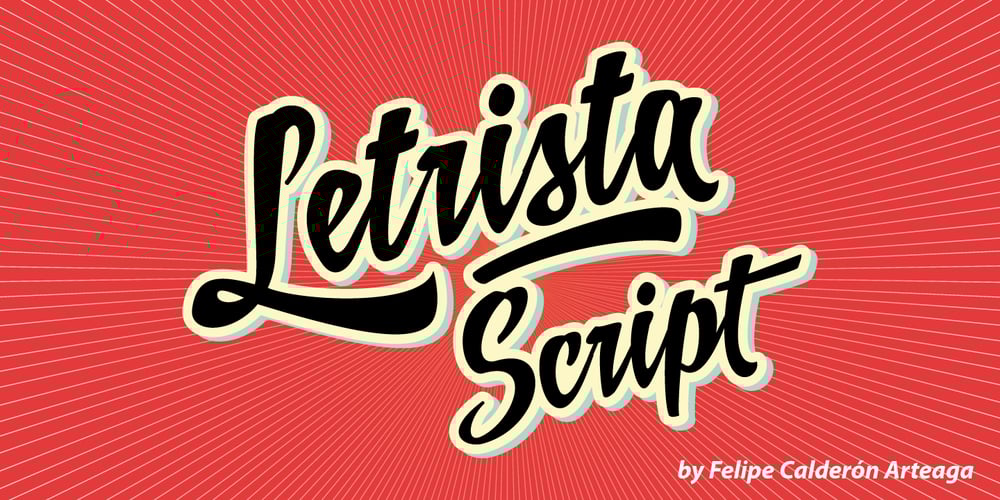
Letrista Script
Letrista Script font
Letrista Script Font Family was designed by Felipe Calderón and published by Estudio Calderon. Letrista Script contains 2 styles and family package options. Letrista Script is a product of observation and sensitivity of sign painter artists not only from United States but from other parts of the world, where the brushstrokes letters have reached a high level of importance in different context, where the writing makes fundamental part. With more than 1000 glyphs, this typography was created to achieve a unique texture without losing the legibility or force, to interact with the alternation of decorative characters and adornment that will surprise. After a year of working and checking with many artists, Letrista Script come up to the public with the guarantee of being an useful tool in your computer in the design time. When you know it, you surely won’t stop using it, because of its beautiful characters and great texture. It is full of surprises and facilities for the users. Letrista Script includes standard ligatures, stylistics alternatives, discretionary ligatures, swashes, titling alternates and terminal forms, Stylistic Set 1, 2, 3 and 4, ornaments and a complete package of Catch Words. See specimen and samples here. Letrista Script was selected at the Bienal Tipos Latinos 2012. Check out some uses of this font here https://fontsinuse.com/uses/20207/ica-beverages